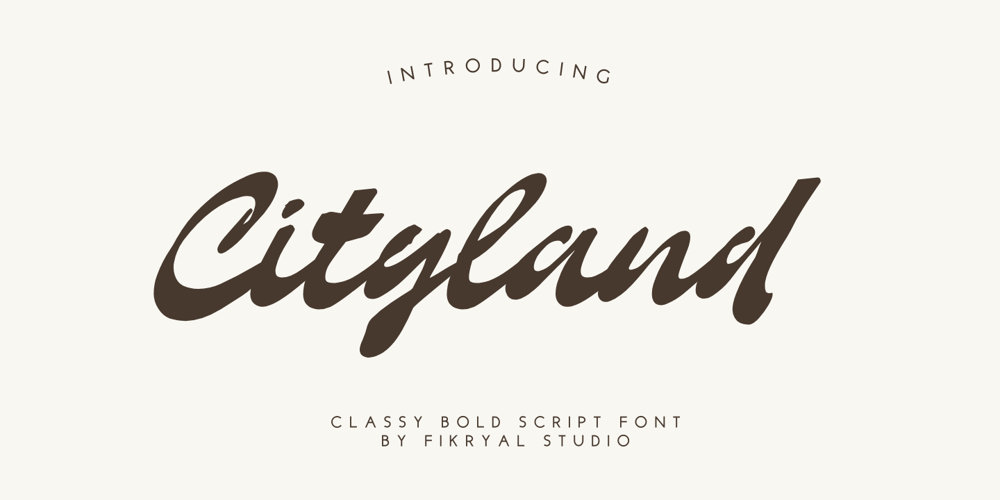
Cityland
Cityland font
Cityland Font Family was designed by Muhammad Fikry and published by Fikryal. Cityland contains 1 styles and family package options. Cityland is a font that combines elegance and boldness in a script style. Crafted with meticulous care, this font showcases unique organic characteristics, indicating that each letter is formed with a gentle yet powerful touch by hand. With its distinctive elegance, Cityland presents a captivating and charming style, perfect for projects that require a luxurious and classy impression. Although created organically, Cityland has also been refined with careful digital touches, ensuring the clarity and sharpness of each letter. With these characteristics, the Cityland font becomes the ideal choice for designers seeking the perfect combination of natural beauty and digital precision in every detail.If you have any questions please don’t hesitate to contact me.follow my Instagram: fkryallThank you 🙂